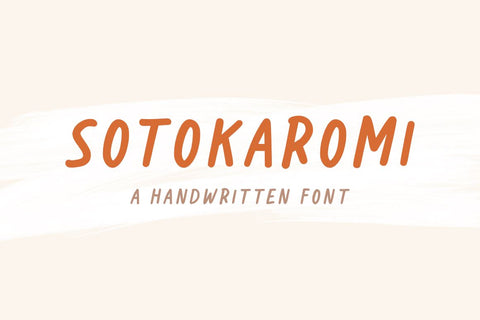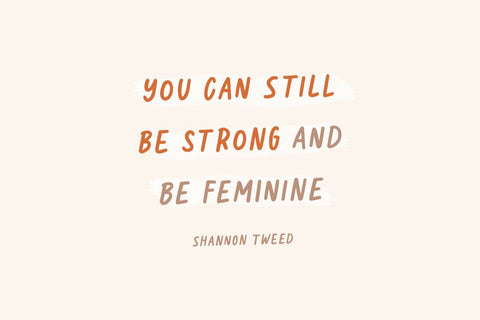
Sotokaromi | a Handwritten Font
Introducing
Sotokaromi a handwritten display font with the standard and bold version style. Very suitable for feminine design, product packaging, logos, title, branding, quotes, book, and much more!